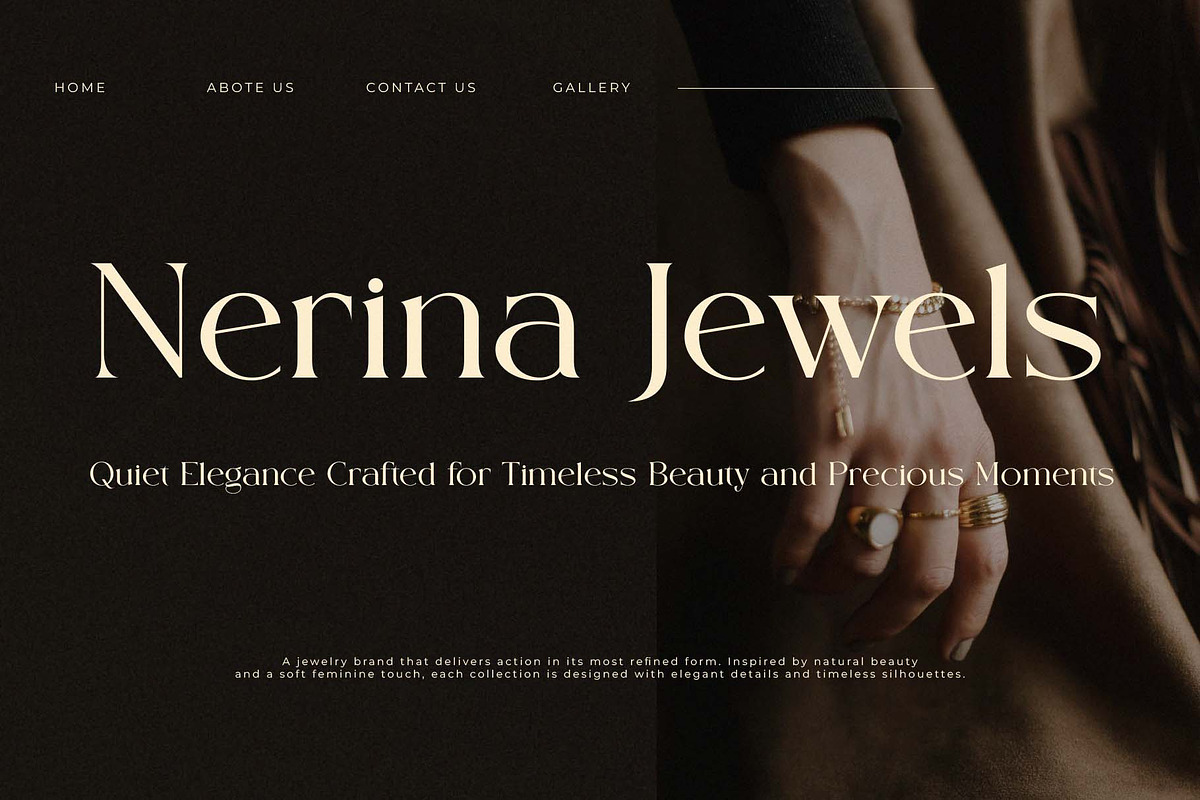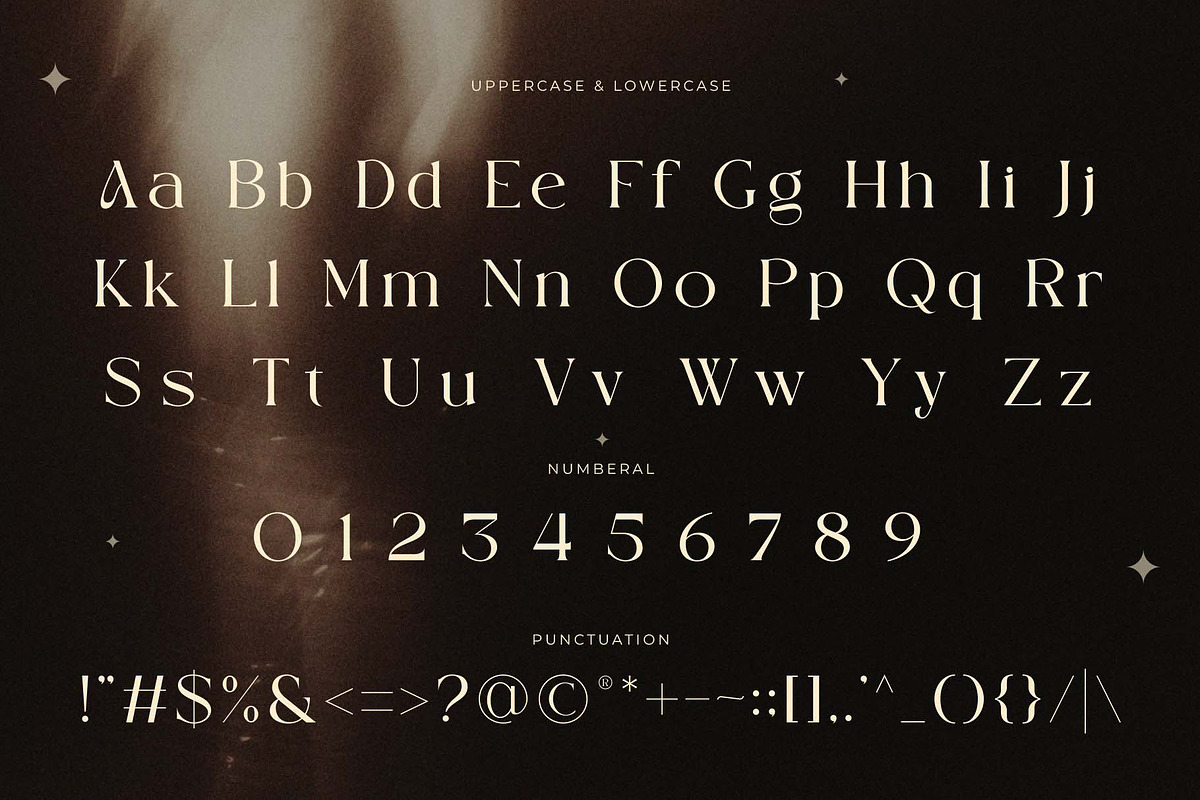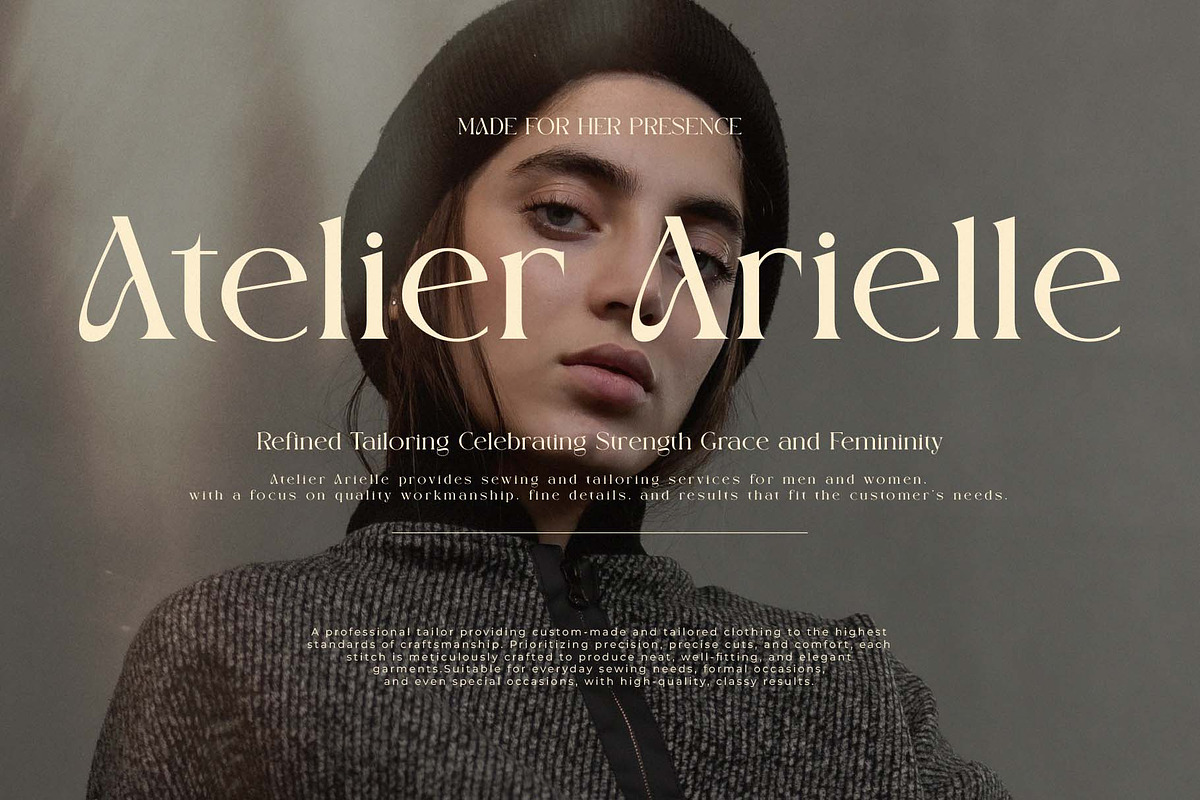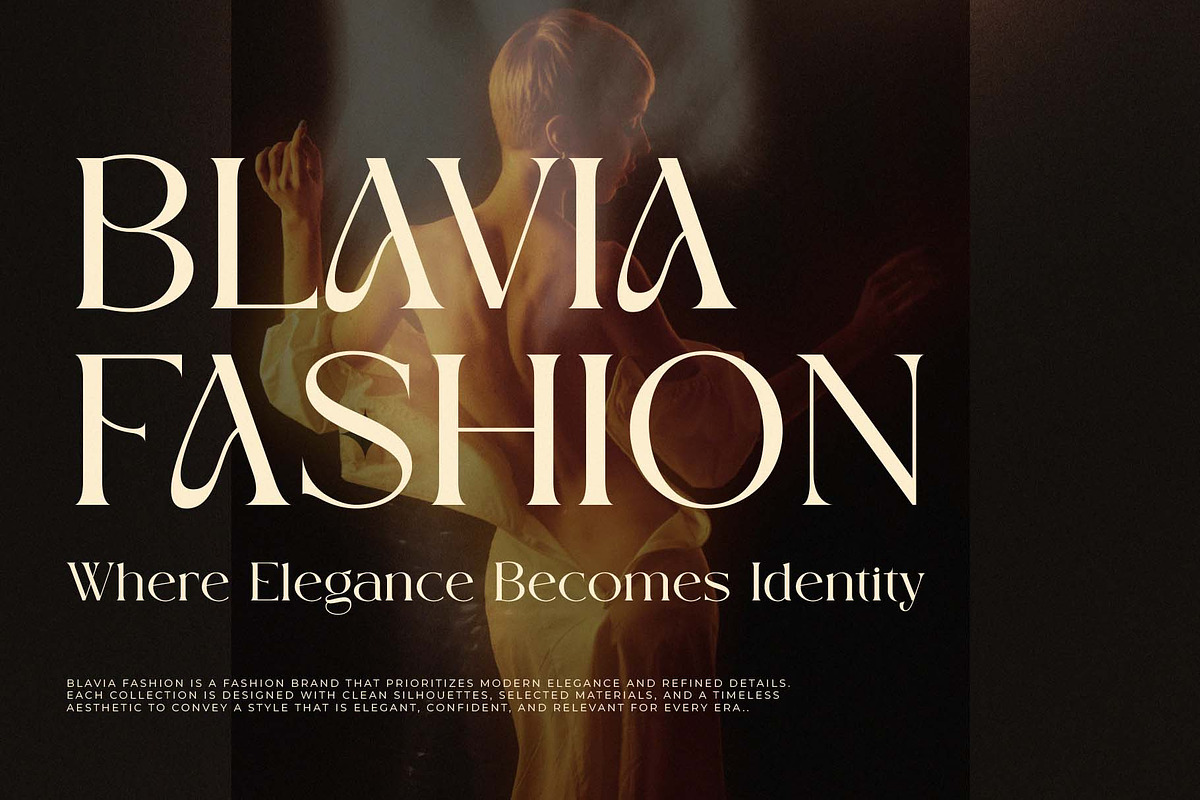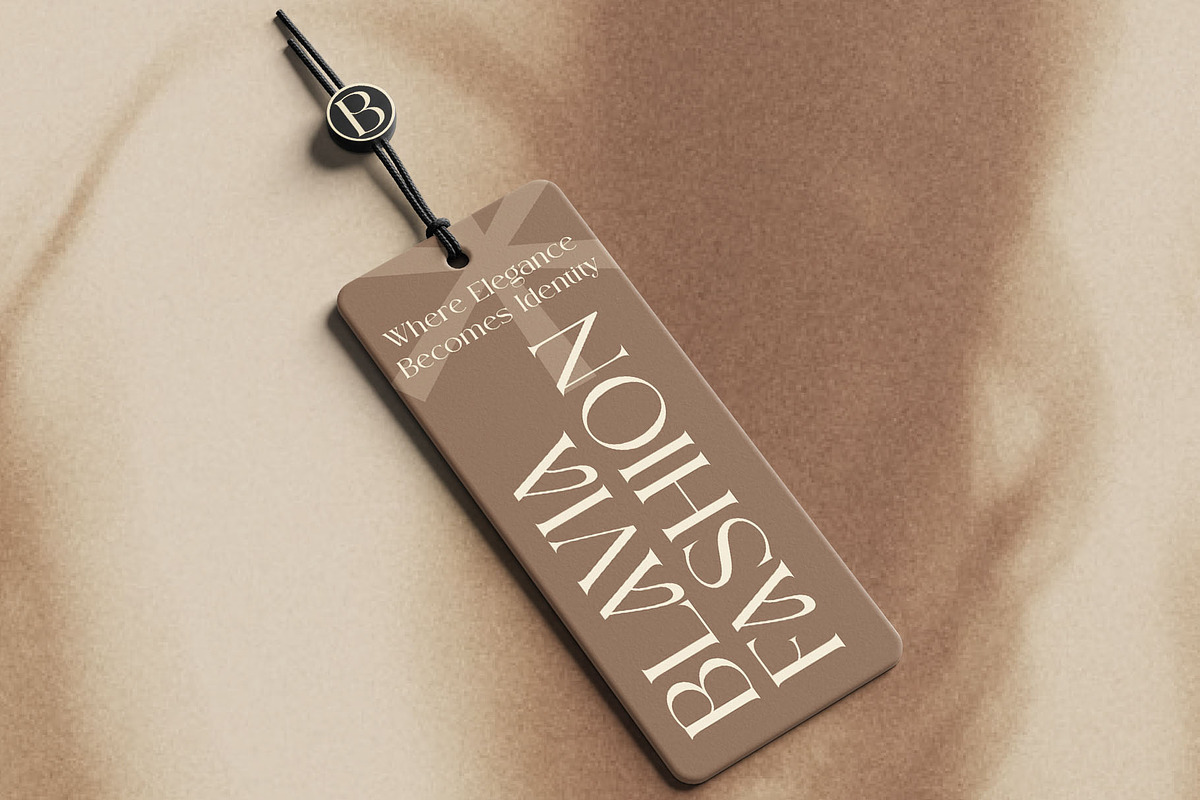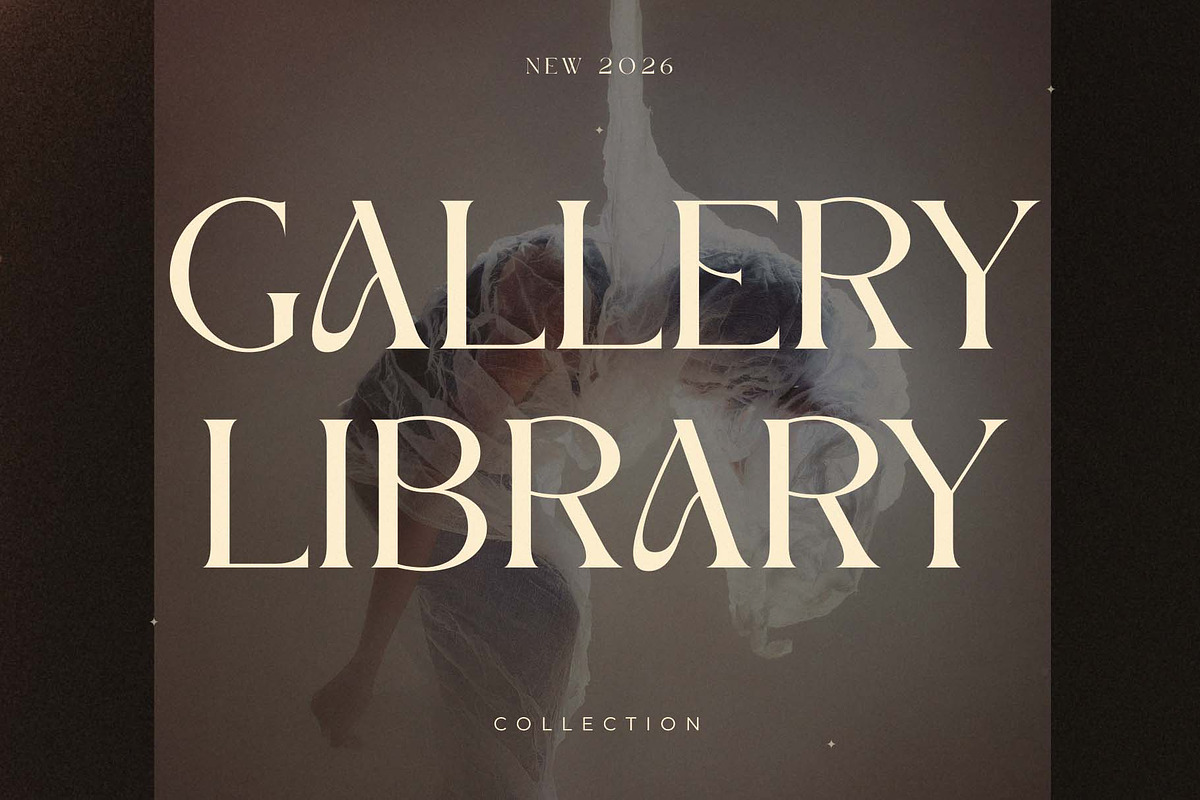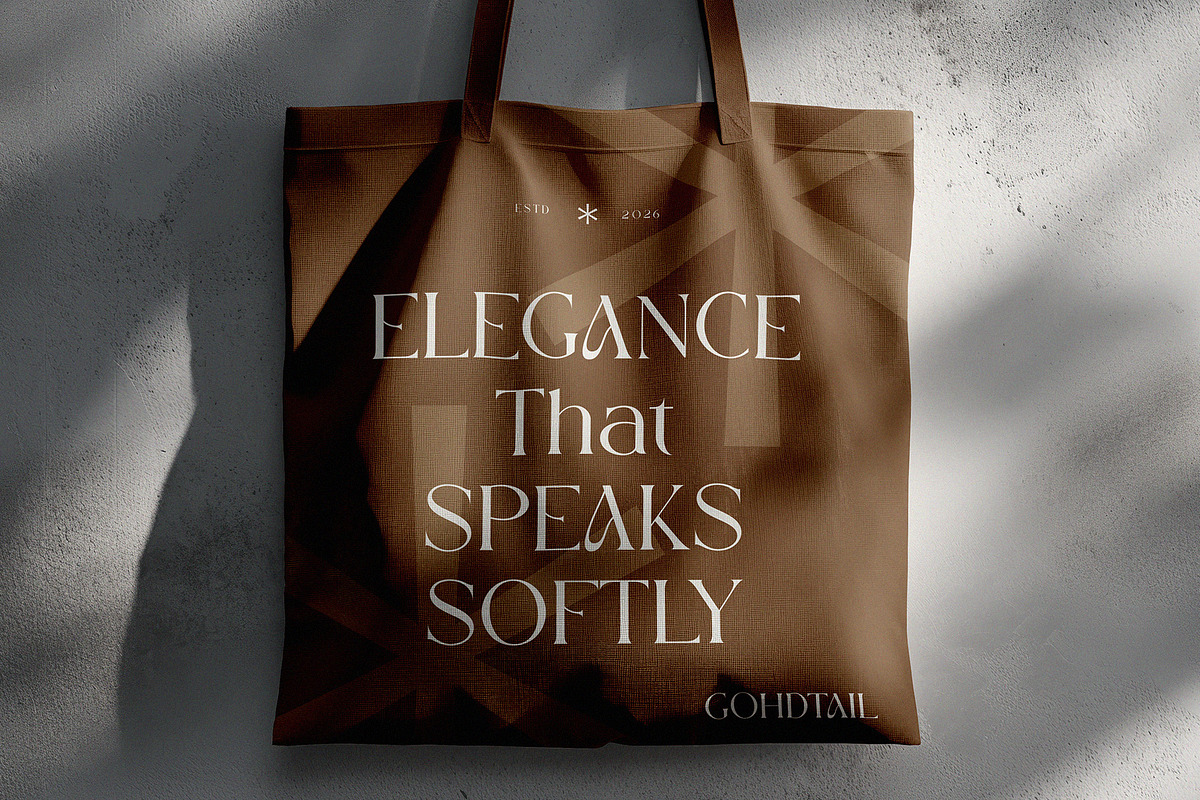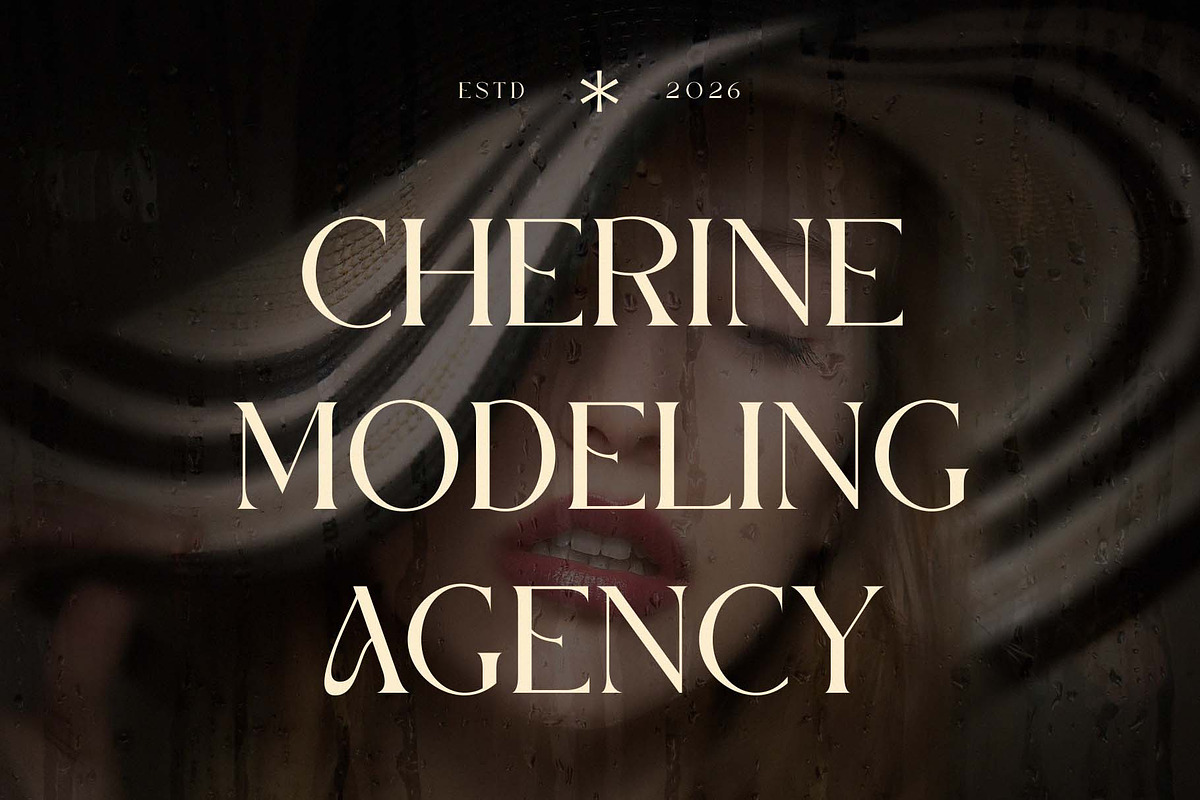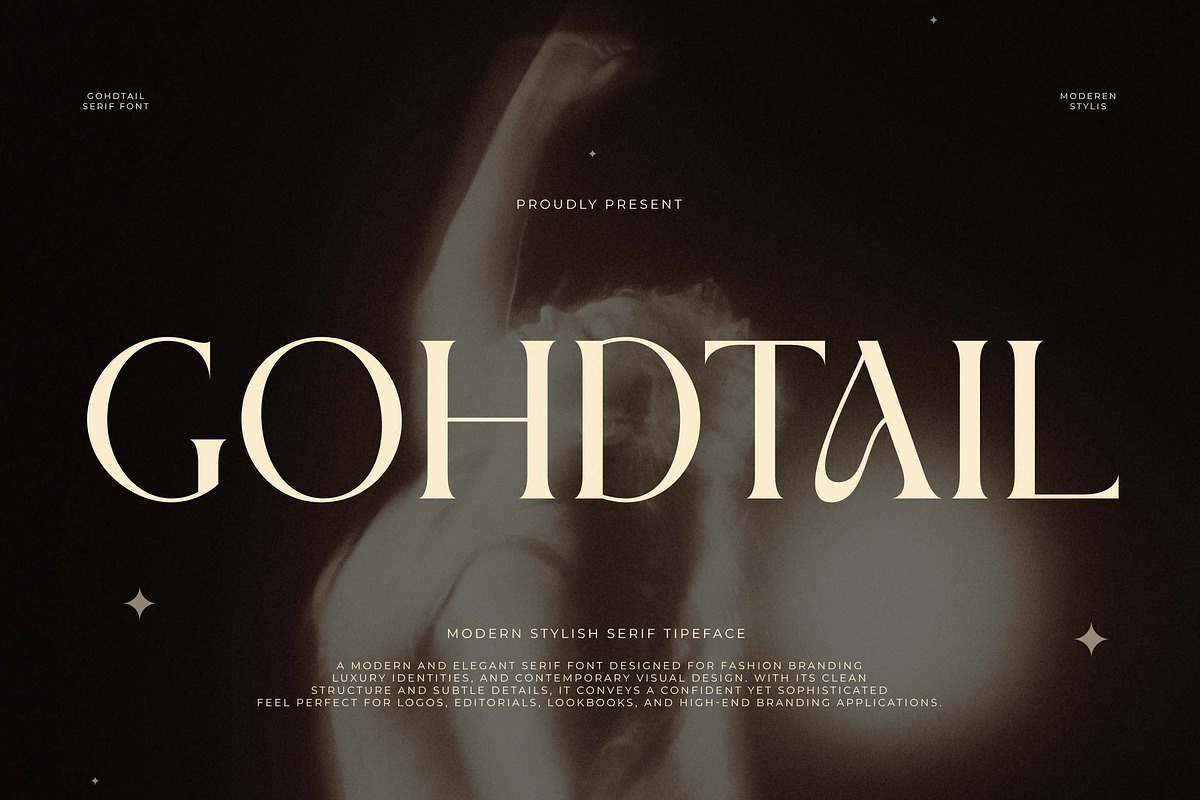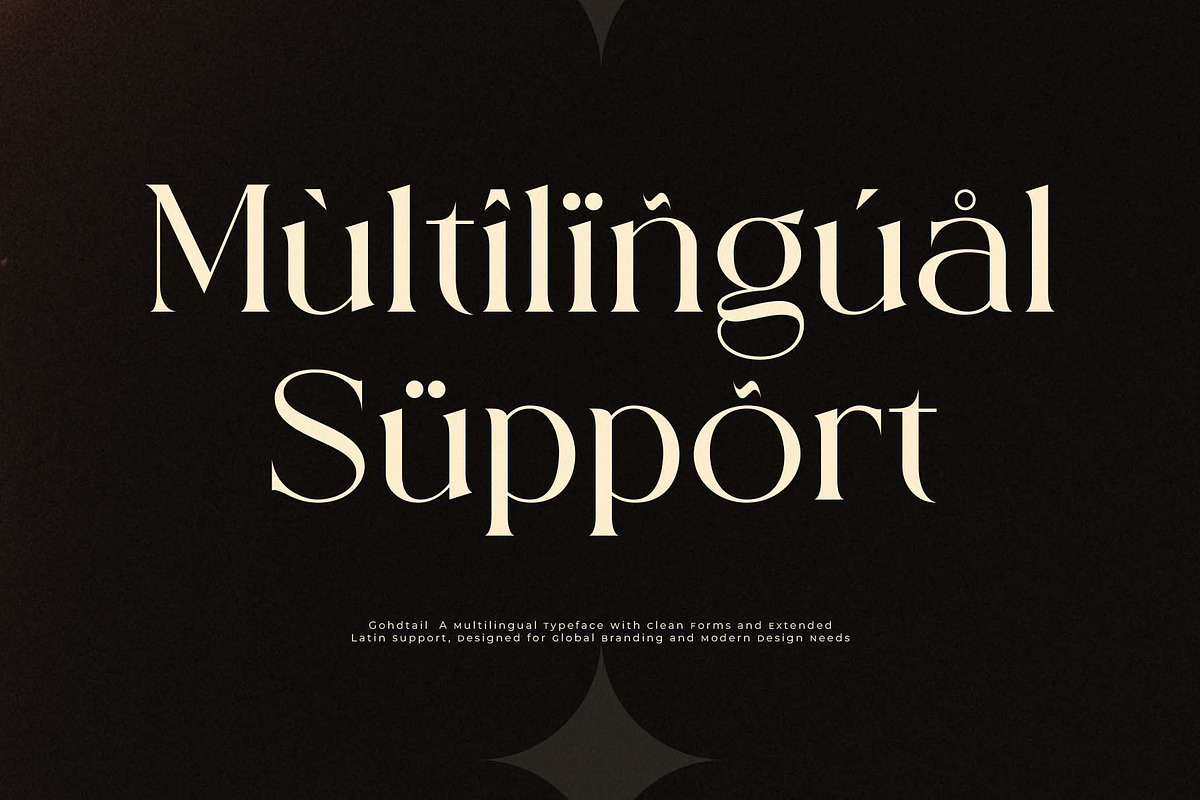
Ghdothil - Modern Stylish Serif
Introducing Godtail the elegant, beautiful, and modern Serif. With its modern and minimalist look, Godtail brings a luxurious, classy, and clean style to your projects such as websites, modern logos, brand identities, social media quotes, wedding stationery, magazines, and more!
Godtail features unique and classy capital letters A to Z and also comes with unique alternates making Godtail a beautiful font that can be customized for various projects and jobs you want.
* Uppercase and lowercase letters
* Multilingual Characters
* Numbers & punctuation
* Alternative styles and ligatures (on some fonts)